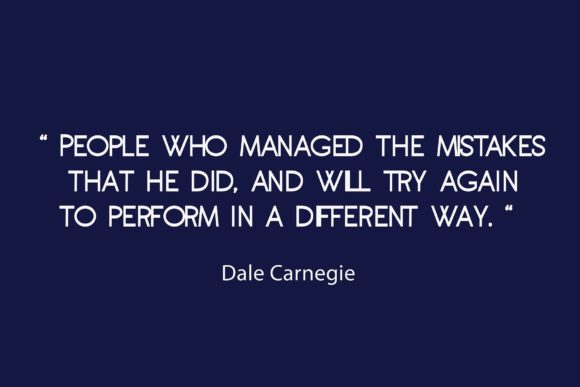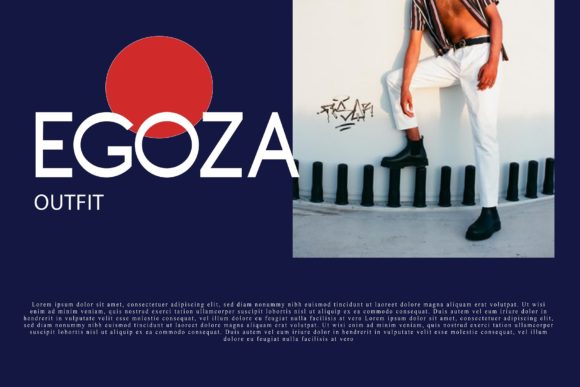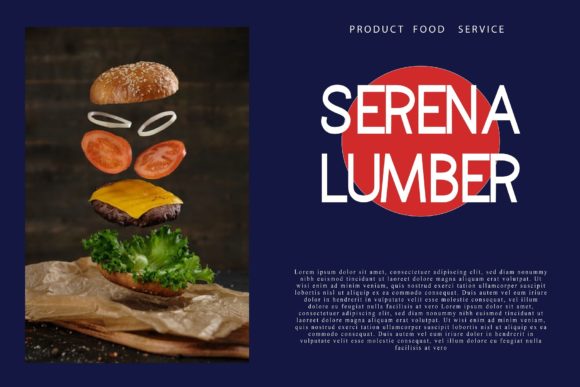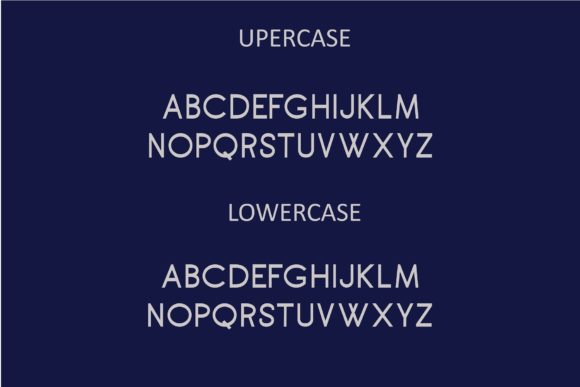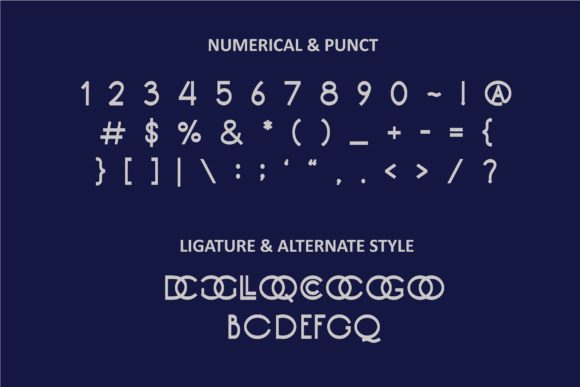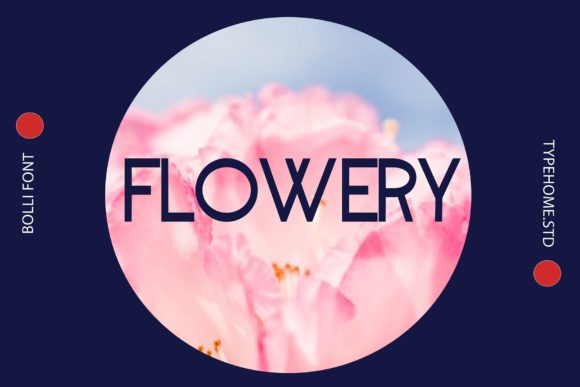
Bolli Font: Elevate Your Designs with a Bold and Simple Sans Serif Font
In the world of typography, fonts play a crucial role in conveying messages, expressing emotions, and creating visual identities. For designers, crafters, and creatives, finding the right font can make all the difference in bringing their ideas to life. If you’re on the hunt for a versatile and impactful font, look no further than Bolli Font. This bold and simple lettered sans serif font is about to become your new go-to asset, capable of elevating any creation to new heights.
The Characteristics of Bolli Font
Bolli Font boasts a clean and minimalist design, making it an excellent choice for a wide range of applications. Its sans serif structure gives it a modern and sleek appearance, perfect for designs that require a touch of sophistication. The bold nature of the font ensures that your message will stand out, grabbing the attention of your audience and leaving a lasting impression.
One of the most significant advantages of Bolli Font is its incredible versatility. No matter the topic, theme, or industry, this font seamlessly adapts to any design. Whether you’re working on a:
- Logo design for a startup
- Poster for a music festival
- Brochure for a fashion brand
- Social media post for a food blogger
Bolli Font will add a professional and stylish touch to your work. Its simplicity and boldness make it an excellent choice for headlines, titles, and short texts, ensuring that your message is conveyed with clarity and impact.
Why Designers and Crafters Love Bolli Font
Designers and crafters appreciate fonts that are both functional and aesthetically pleasing. Bolli Font checks all the right boxes:
- Ease of use: Thanks to its simple and clean design, Bolli Font is incredibly easy to read, even at smaller sizes.
- Flexibility: Use it for digital projects, print materials, or any other creative endeavor.
- Customization: Experiment with different colors, textures, and effects to make Bolli Font truly unique.
Tips for Using Bolli Font Effectively
To get the most out of Bolli Font, consider the following tips:
- Pair it with contrasting fonts: Combine Bolli Font with a more ornate or script font to create visual interest and hierarchy.
- Experiment with colors: Try different color schemes and gradients to add depth and emotion to your design.
- Play with texture: Add a touch of roughness or texture to give your design a more organic feel.
In conclusion, Bolli Font is an exceptional addition to any designer’s or crafter’s font library. Its bold, simple, and versatile nature makes it an excellent choice for a wide range of applications. Whether you’re looking to create stunning visual identities, attention-grabbing headlines, or simply want to elevate your designs, Bolli Font is the perfect tool for the job. So why wait? Give Bolli Font a try today and discover the impact it can have on your creative projects!